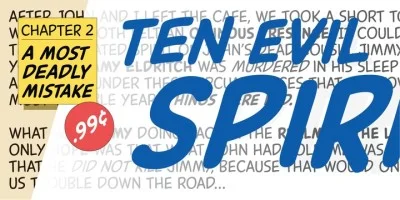
CommonComic Font
This comic typeface is perfect for comic books, graphic novels, cartoon branding, children's publications, gaming graphics, superhero merchandise, animation studios, webcomics, and playful entertainment design projects.
What makes this font exciting is its comic book authenticity combined with professional readability, offering designers a dynamic typeface that captures the energy of graphic storytelling while delivering exceptional clarity and superhero-level visual impact.
The CommonComic font family includes regular, bold, italic, condensed, and balloon variations, providing complete comic design solutions for creating engaging graphic storytelling visual identities.
Whether you're developing comic entertainment brands or crafting graphic novel experiences, CommonComic Font brings exceptional comic atmosphere and storytelling authenticity to every application. This dynamic typeface combines traditional comic book typography with contemporary graphic design, creating letterforms that inspire action and adventure. The font's comic construction and storytelling-ready details make it perfect for brands seeking immediate comic recognition.
CommonComic Font features carefully crafted comic styling with authentic graphic character that conveys genuine storytelling expertise. Each character has been designed for maximum impact and readability in comic applications, with bold proportions and dynamic elements that enhance the entertaining aesthetic. The font's comic qualities make it particularly effective for entertainment brands and graphic applications.
Professional designers choose CommonComic Font for projects requiring authentic comic credibility and graphic atmosphere. Its storytelling heritage makes it exceptionally well-suited for comic publishers, animation studios, and entertainment lifestyle brands. The font's versatile comic variations allow designers to control the graphic intensity, from subtle comic elegance to full superhero celebration.
The complete CommonComic Font package offers extensive comic ornaments and graphic decorative elements that enhance the storytelling aesthetic. Advanced comic features allow designers to create complex graphic effects with multiple superhero-inspired options. This comprehensive comic toolkit ensures designers have everything needed to create authentic graphic communications that celebrate the dynamic power of visual storytelling and comic book adventure.